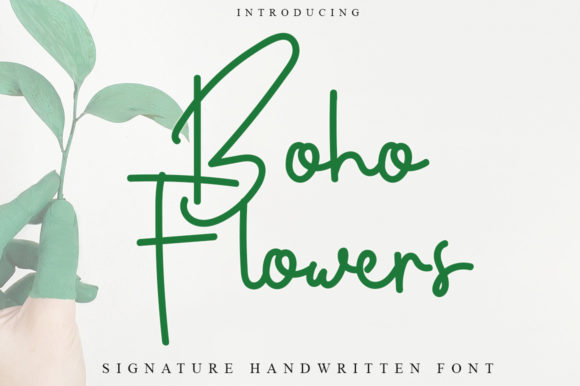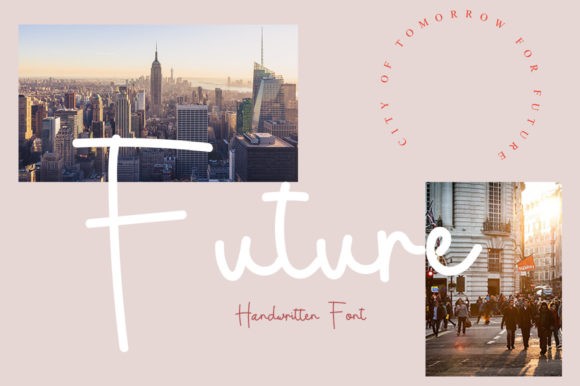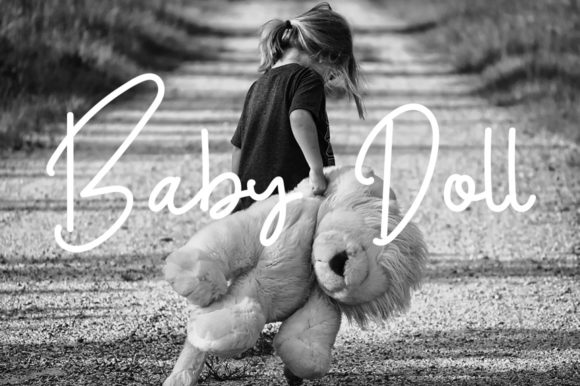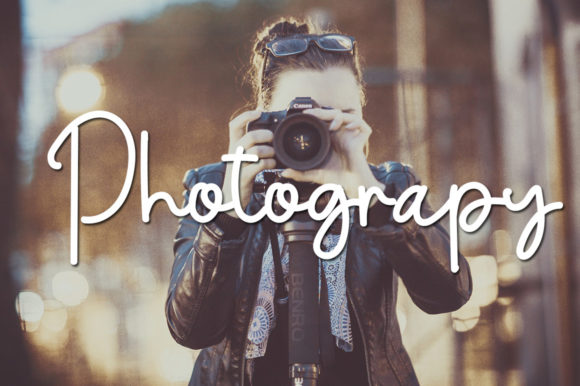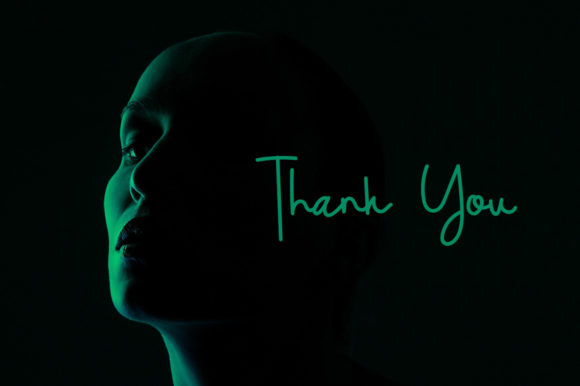
Boho Flowers Font
About Boho Flowers Font
Boho Flowers is a sweet and cursive handwritten font. This gentle font will look gorgeous on a variety of design ideas. It will add a joyful and romantic touch to each of your projects!